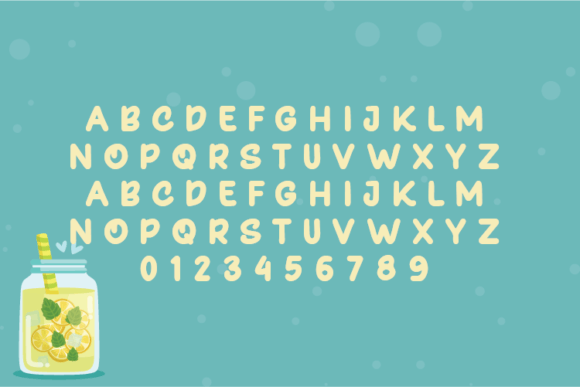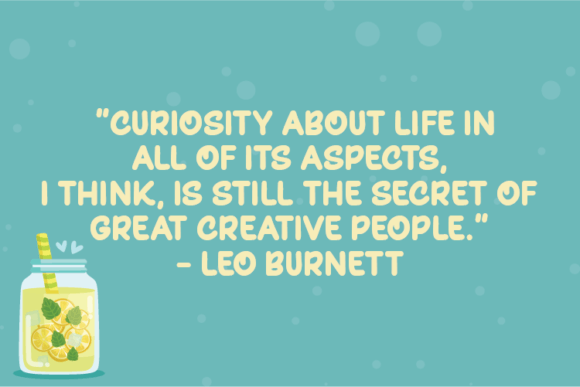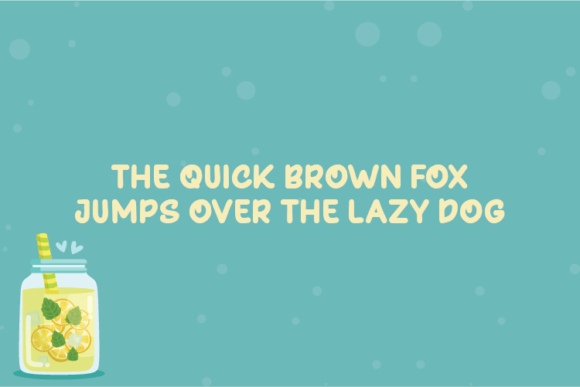
Introducing Delicious Lemonade Font: A Refreshingly Unique Handwritten Style
Are you tired of using the same old fonts for your designs? Look no further! Delicious Lemonade Font is a natural, handwritten font that is sure to add a touch of personality to your projects. What sets it apart is its unique approach to character indentation, making each letter truly one-of-a-kind.
The Story Behind Delicious Lemonade Font
Delicious Lemonade Font is a carefully crafted font that has been designed to bring a sense of freshness and playfulness to your designs. The font’s creator has taken a meticulous approach to ensure that each character is unique, with no alteration to a single node in each character’s indentation. This attention to detail results in a font that is both interesting and distinctive.
Key Features of Delicious Lemonade Font
- Natural Handwritten Style: Delicious Lemonade Font boasts a genuine, handwritten look that is perfect for adding a personal touch to your designs.
- Unique Character Indentation: The font’s distinctive approach to character indentation sets it apart from other fonts, making it a standout choice for designers.
- Versatile: Delicious Lemonade Font is perfect for a wide range of applications, including quotes, notes, tees, and any product design.
Delicious Lemonade Font is a dream come true for designers and crafters looking to add a touch of whimsy to their projects. Whether you’re creating:
- Quotes and Posters: Add a personal touch to your inspirational quotes and posters with this unique font.
- Notes and Stationery: Make your notes and stationery stand out with the fresh, playful look of Delicious Lemonade Font.
- T-Shirts and Apparel: Create eye-catching tees and apparel with this fun and distinctive font.
- Product Design: Add a touch of personality to your product designs, from labels to packaging, with Delicious Lemonade Font.
Why Choose Delicious Lemonade Font?
With so many fonts to choose from, why should you opt for Delicious Lemonade Font? Here are just a few reasons:
- Uniqueness: This font’s distinctive approach to character indentation ensures that your designs will stand out from the crowd.
- Versatility: Delicious Lemonade Font is suitable for a wide range of applications, making it a great addition to your font library.
- Ease of Use: This font is easy to read and works beautifully in both digital and print formats.
Delicious Lemonade Font is a refreshing and unique addition to any designer’s font library. Its natural, handwritten style and distinctive character indentation make it perfect for adding a touch of personality to your projects. Whether you’re a designer, crafter, or simply someone looking to add some flair to your designs, Delicious Lemonade Font is sure to delight.